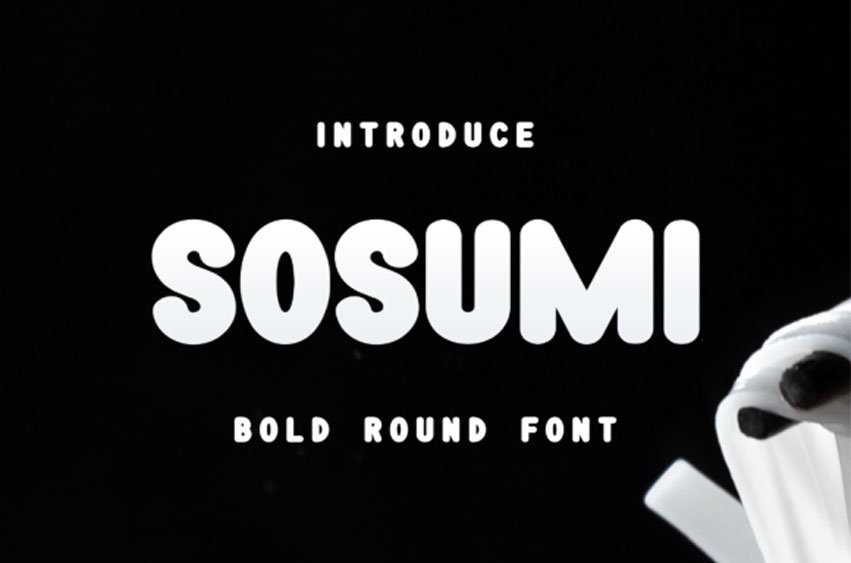
Sosumi Font is a bold, rounded font with just the right precision to make it more efficient in its use.
This font is suitable for food products like noodles, pasta, burgers, milk, yogurt, and products related to it.
Or maybe you have other views on the use of this font.